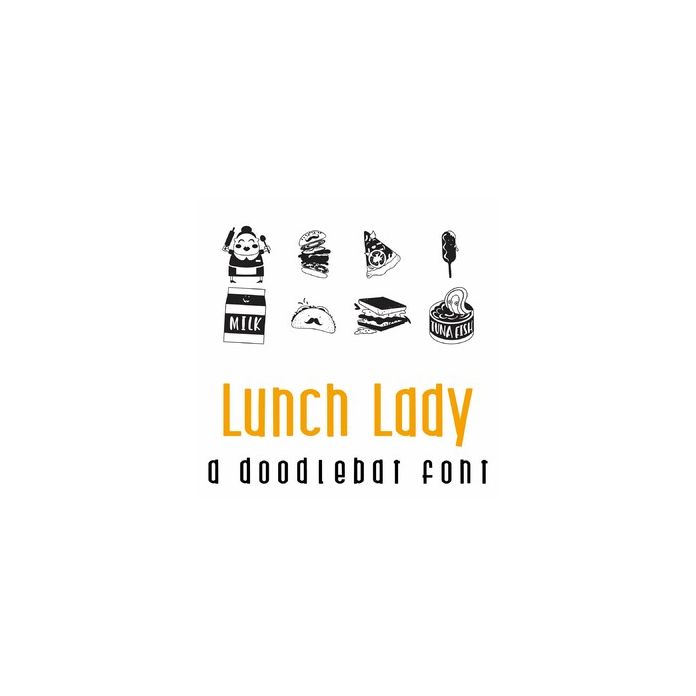
This fun doodlebat font features 26 fun cafeteria items and a lunch lady. Perfect for cards, gifts, decor, crafts, scrap book pages, planner stickers and more!